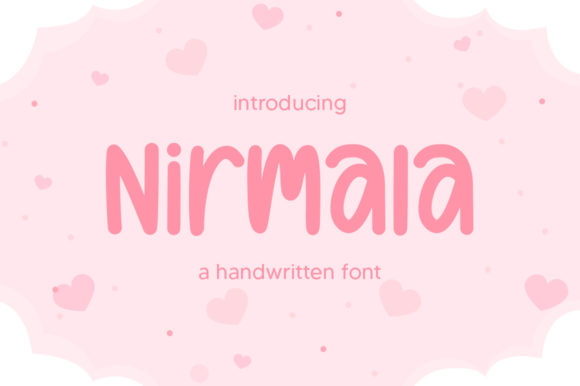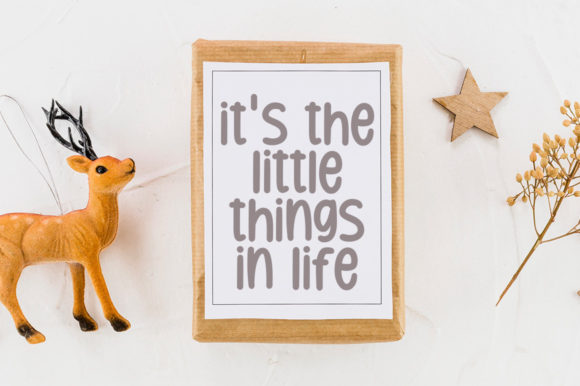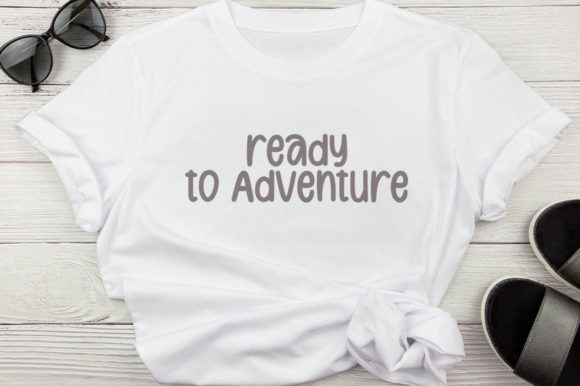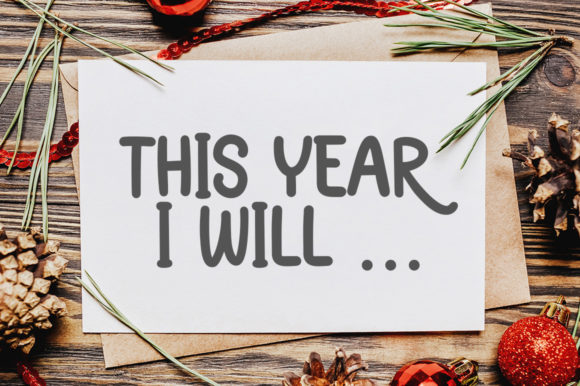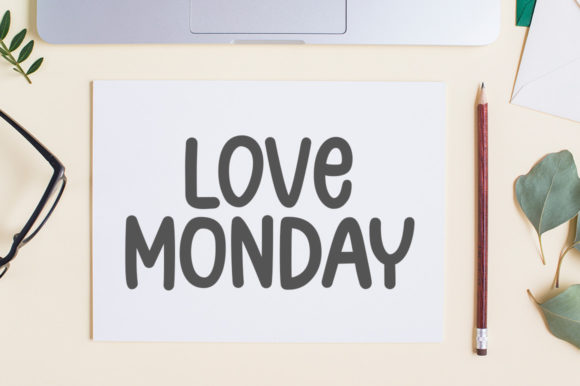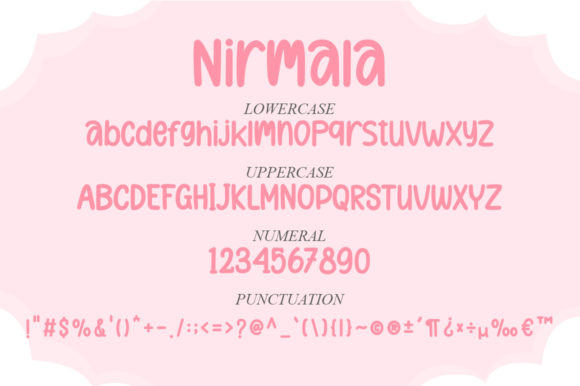
Nirmala Font
About Nirmala Font
Nirmala is a cool and modern handwritten font. Add it to your most creative ideas and notice how it makes them come alive! Its natural and unique style makes it incredibly fitting to a large pool of designs.